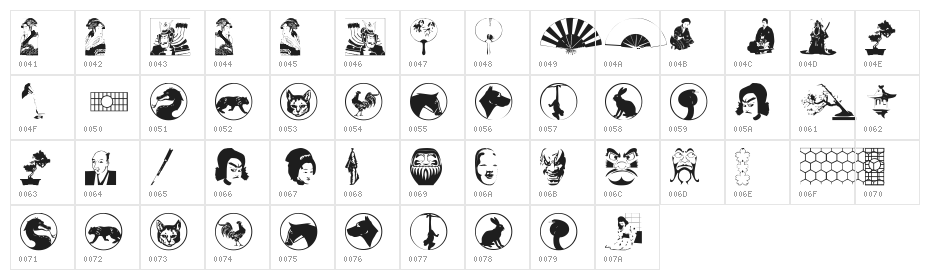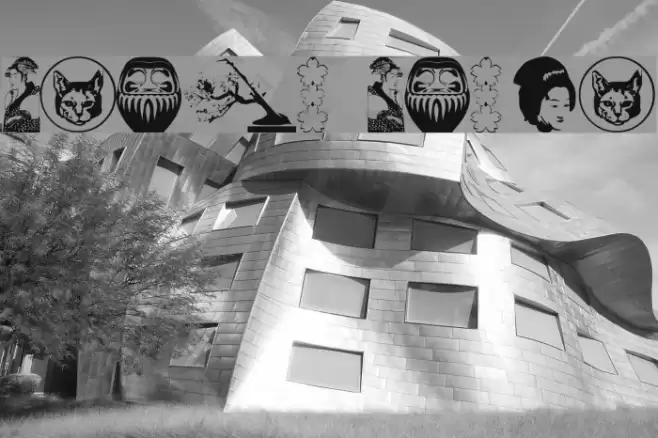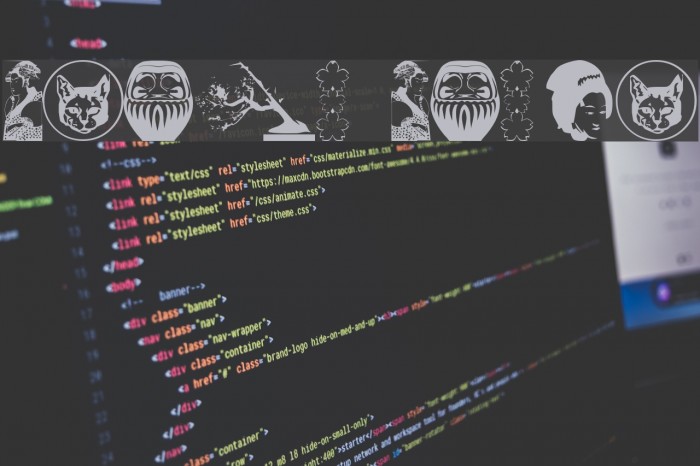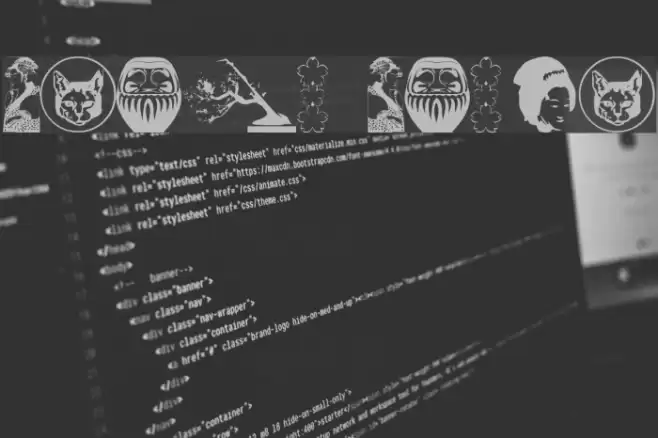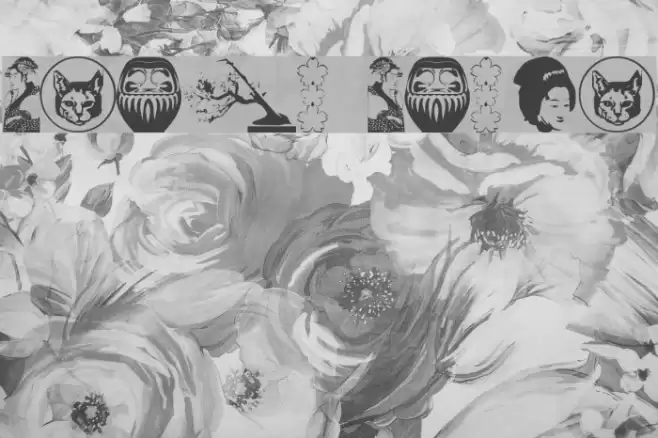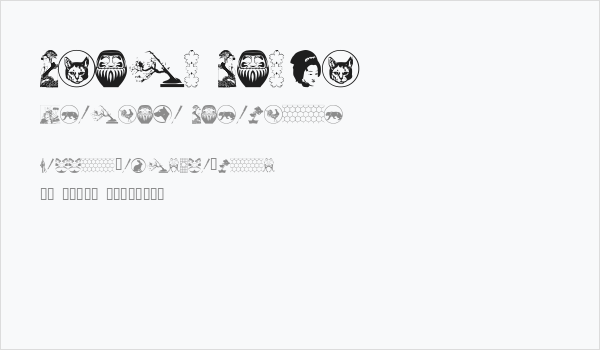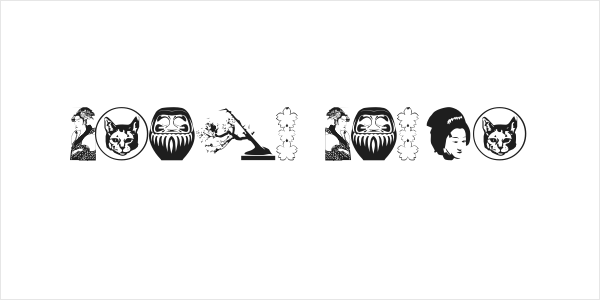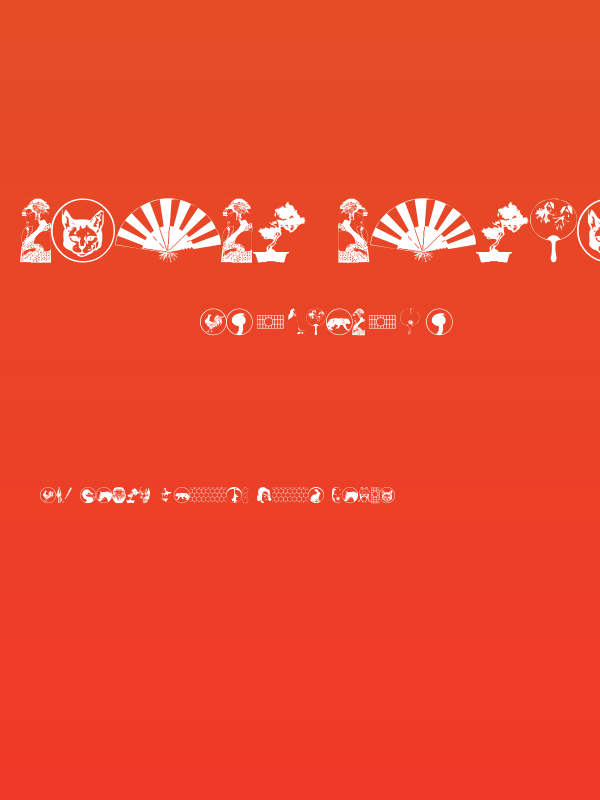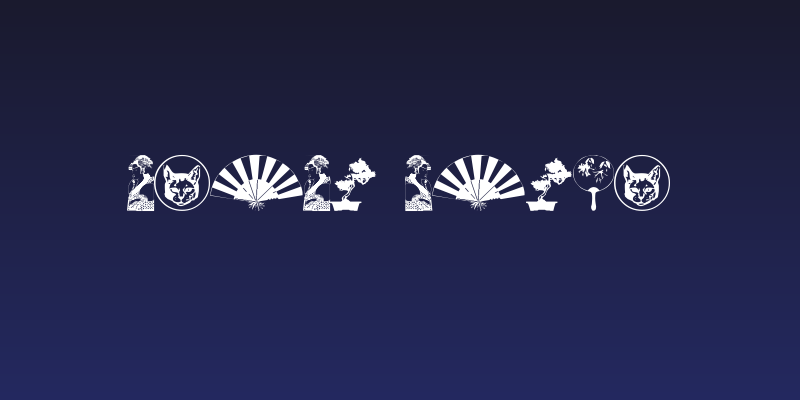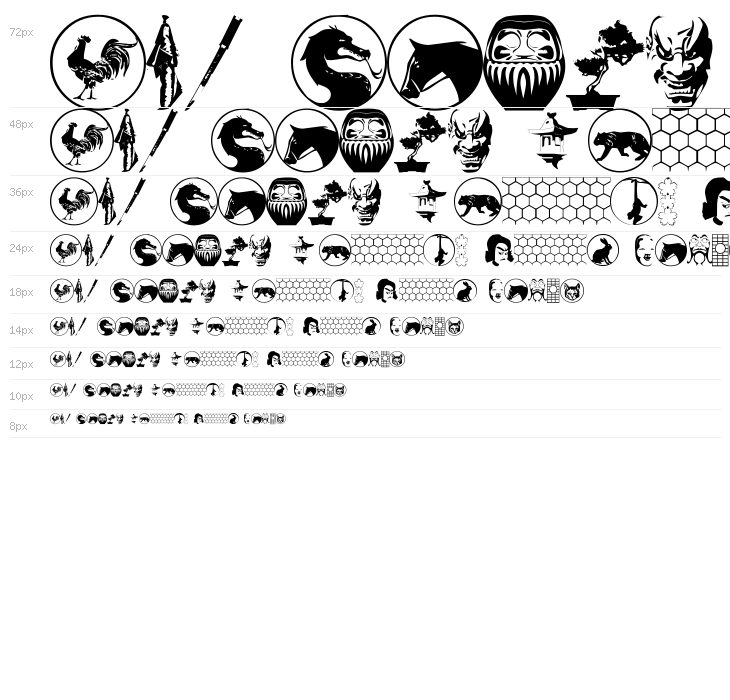
Asian Dings Font
Asian Dings Description
This collection features a series of intricate and culturally themed dingbats inspired by traditional Asian art and motifs. The designs include detailed illustrations of geishas, fans, bonsai trees, and various animals, each encapsulated within circular or rectangular frames. The artwork is highly stylized, capturing the essence of classic Asian aesthetics with bold lines and high contrast. These symbols are not letters or numbers but rather decorative icons that can be used to enhance visual projects with an Asian theme. The characters are evenly spaced, providing a balanced and harmonious appearance.
| Use Case | Logos, Decorative elements |
| Proposed Projects | Ideal for cultural event posters, themed invitations, decorative borders, and artistic projects requiring an Asian aesthetic. |